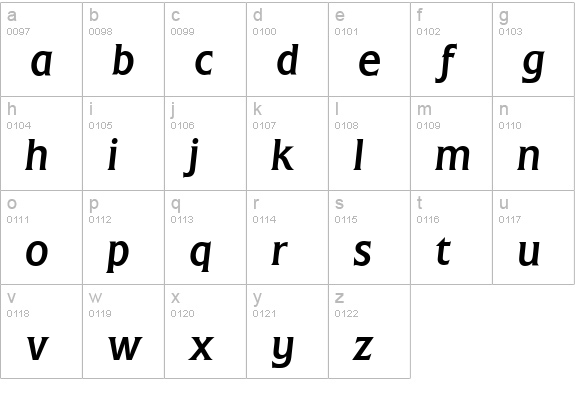
Fleming-Italic is a distinctive, italic variant in the Fleming typeface family \xE2\x80\x94 well suited to design and typography projects.
Fleming-Italic font exudes elegance and sophistication with its sleek and stylish design. The italicized letterforms of Fleming-Italic add a touch of grace and flair to any text, making it perfect for projects that require a sense of refinement. This font is ideal for use in invitations, branding materials, and editorial designs where a touch of sophistication is needed. The best part is that Fleming-Italic is available for free download at FontsMarket.com. This means that you can easily access this exquisite font and incorporate it into your projects without any hassle. Don't miss out on the opportunity to enhance your designs with the timeless beauty of Fleming-Italic. Download it today and elevate your typography game to a whole new level.